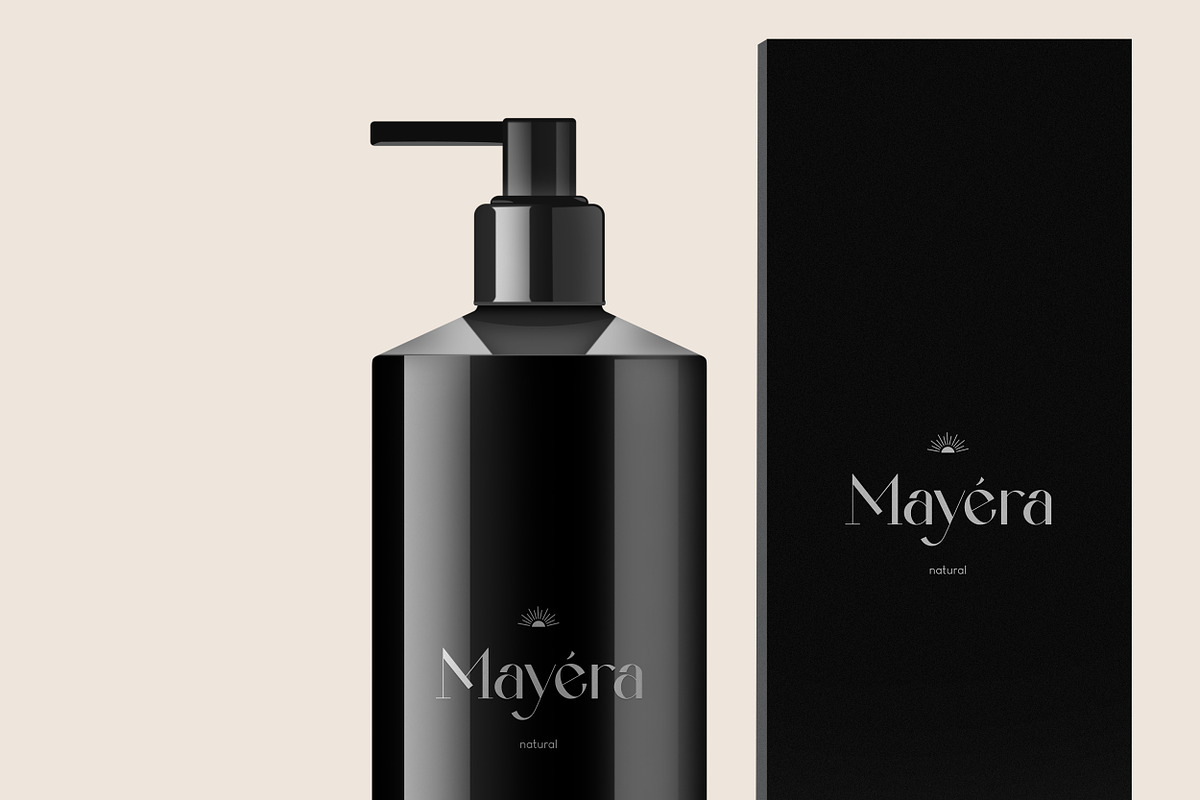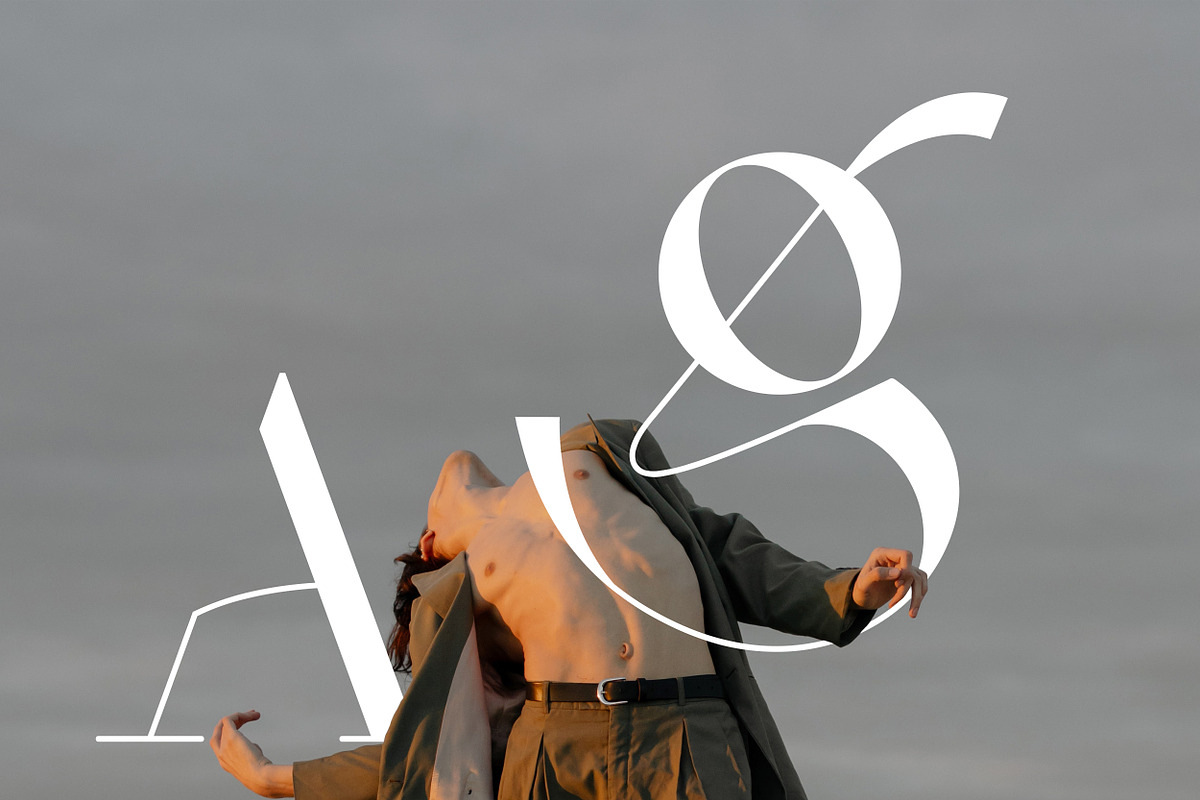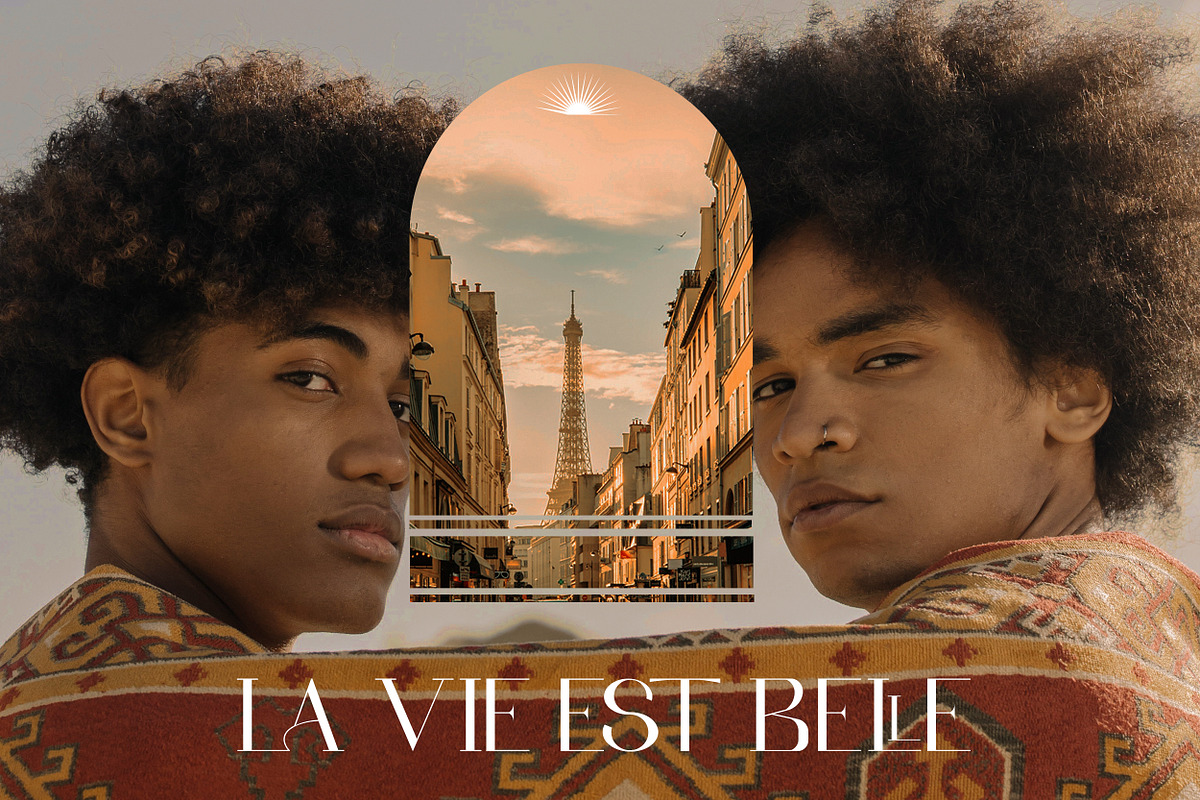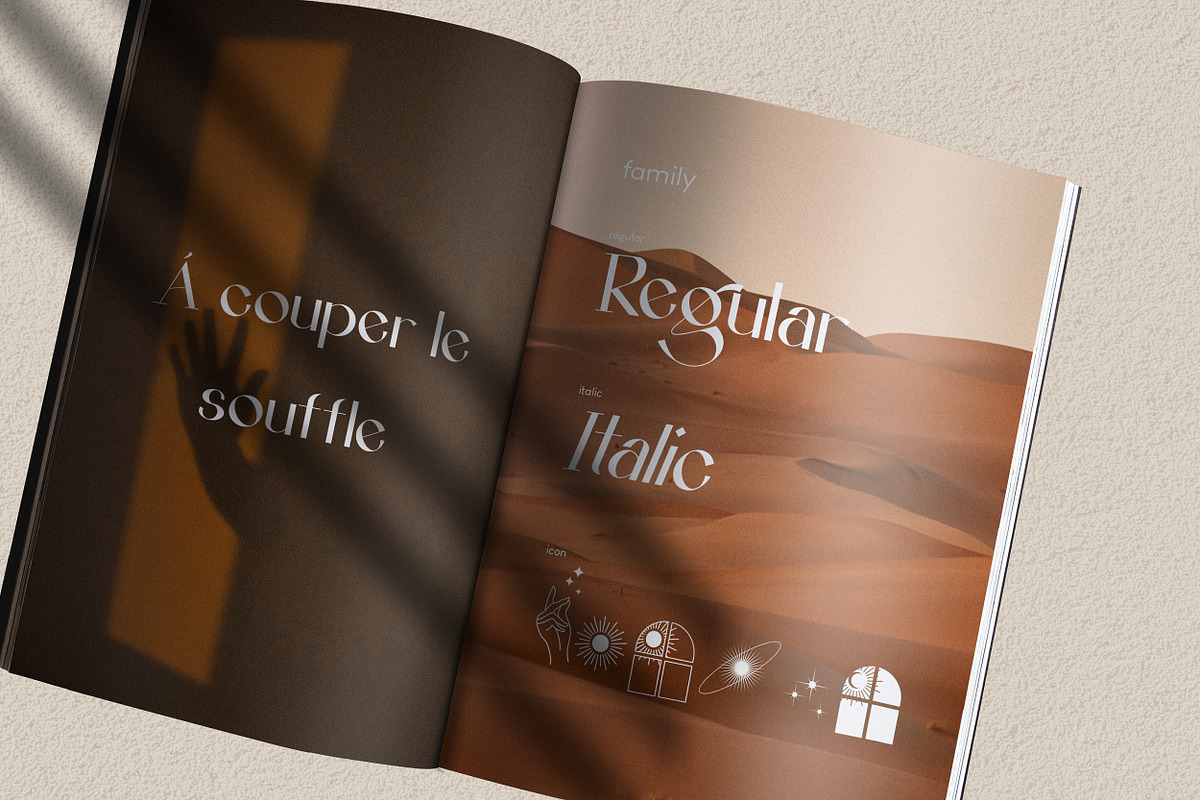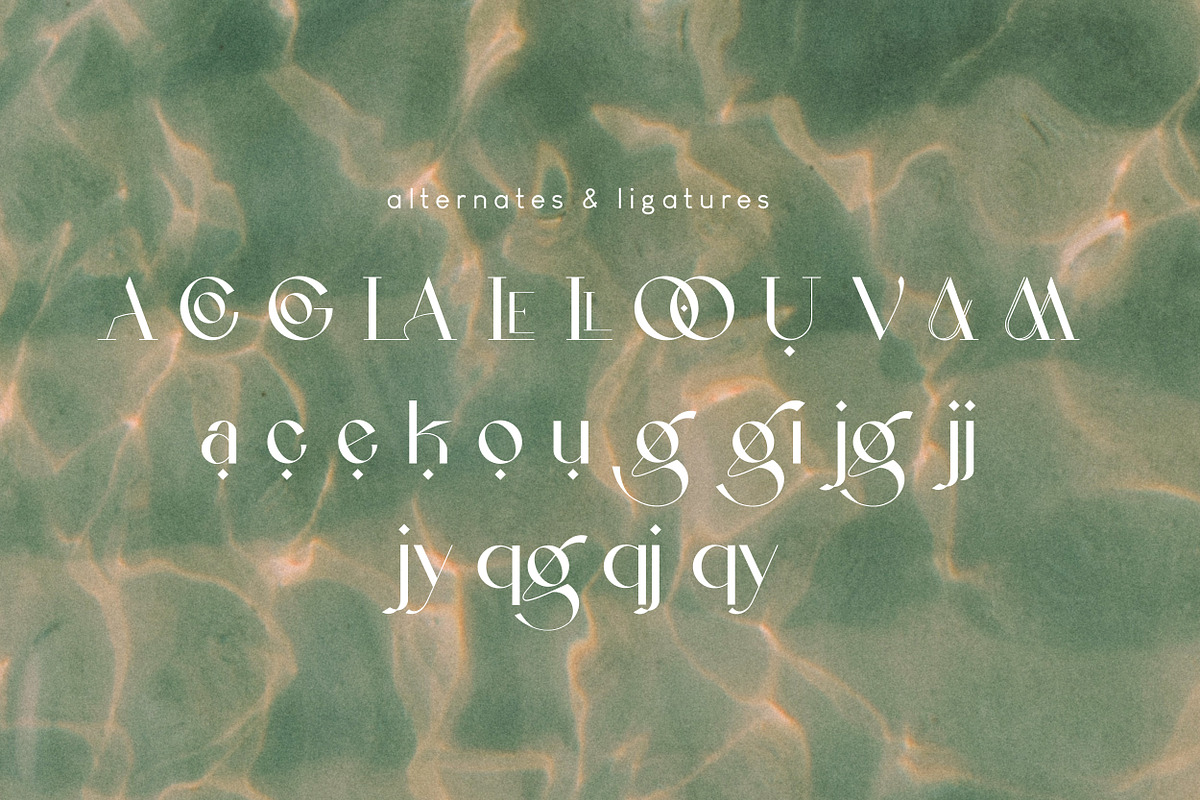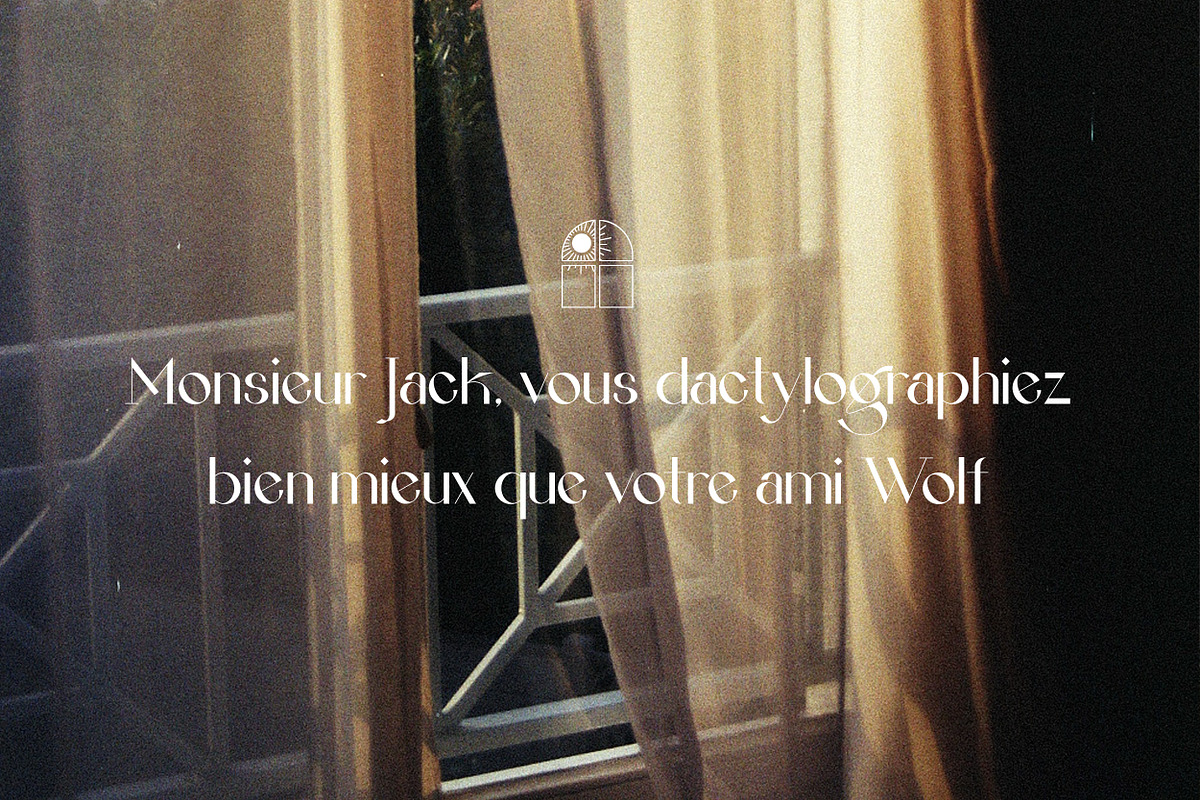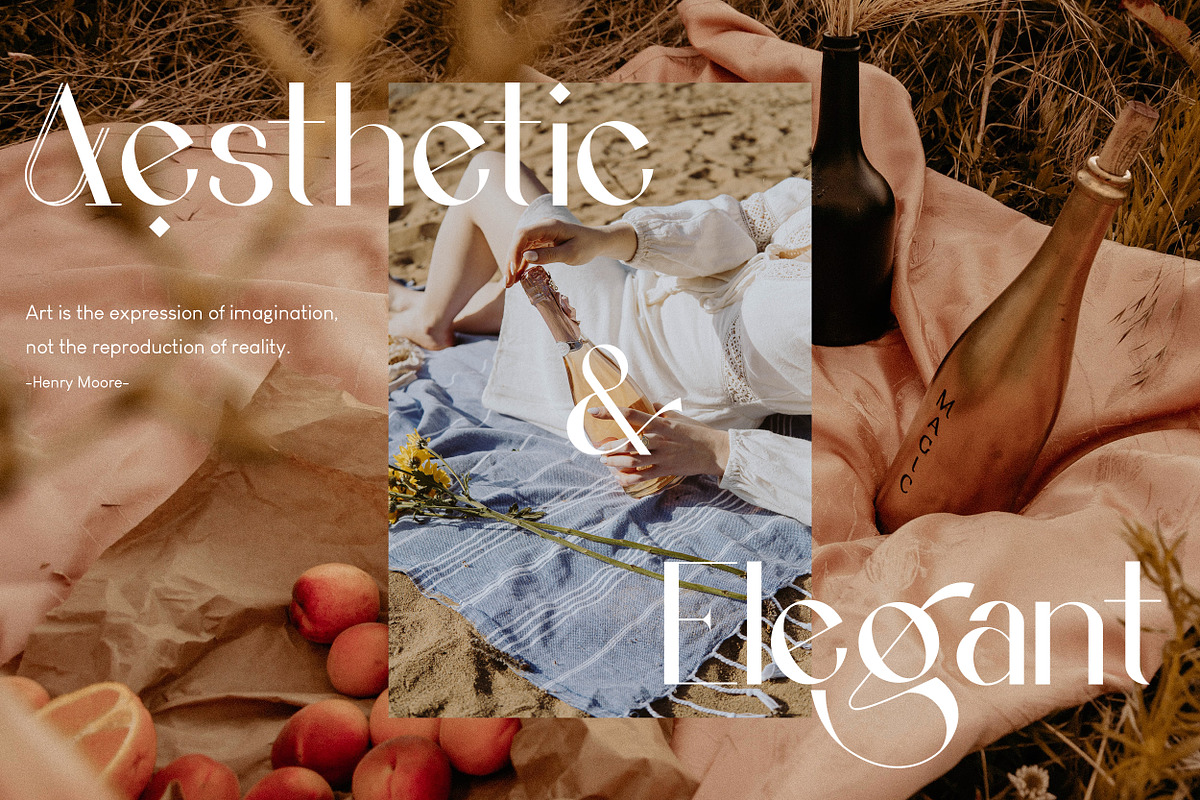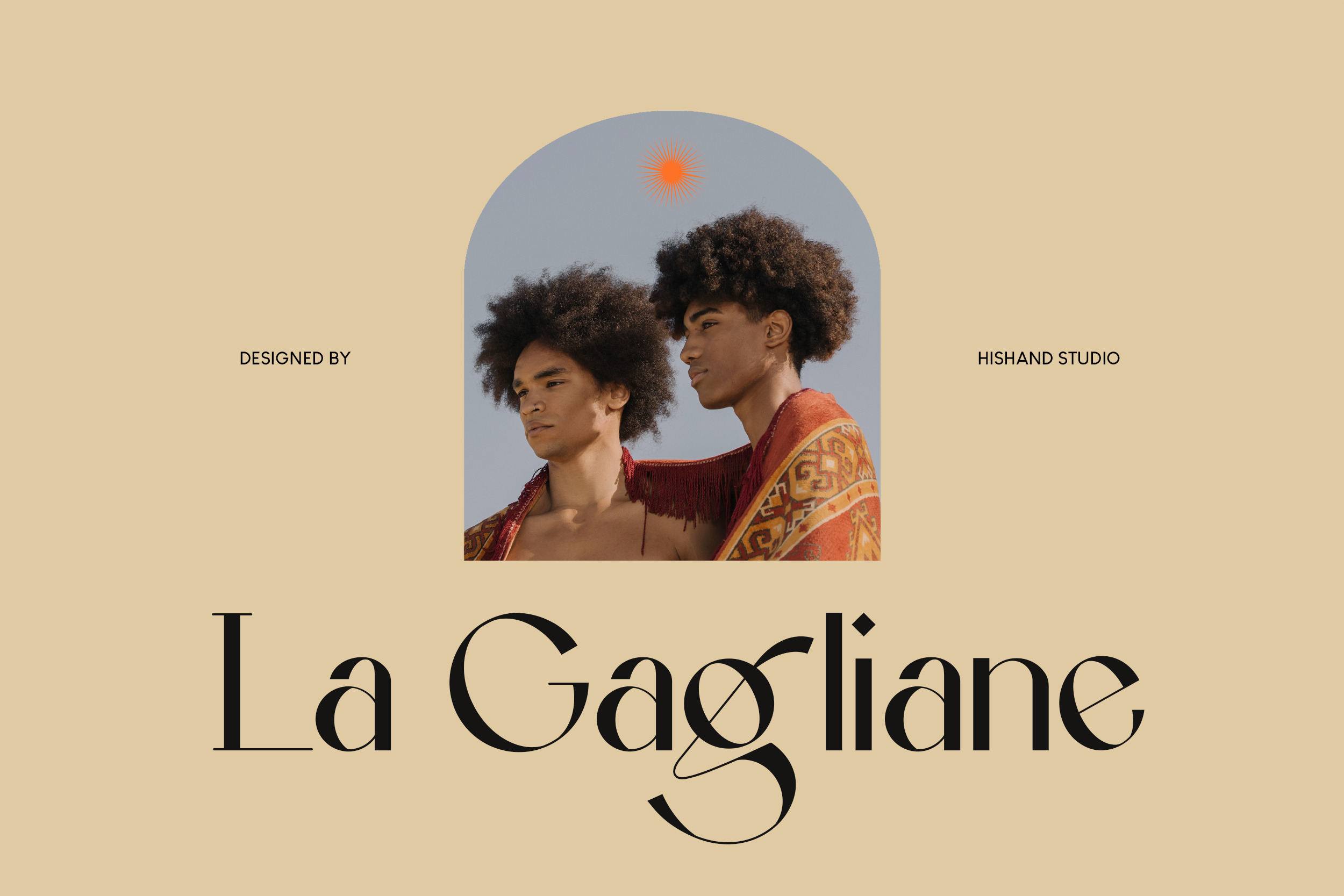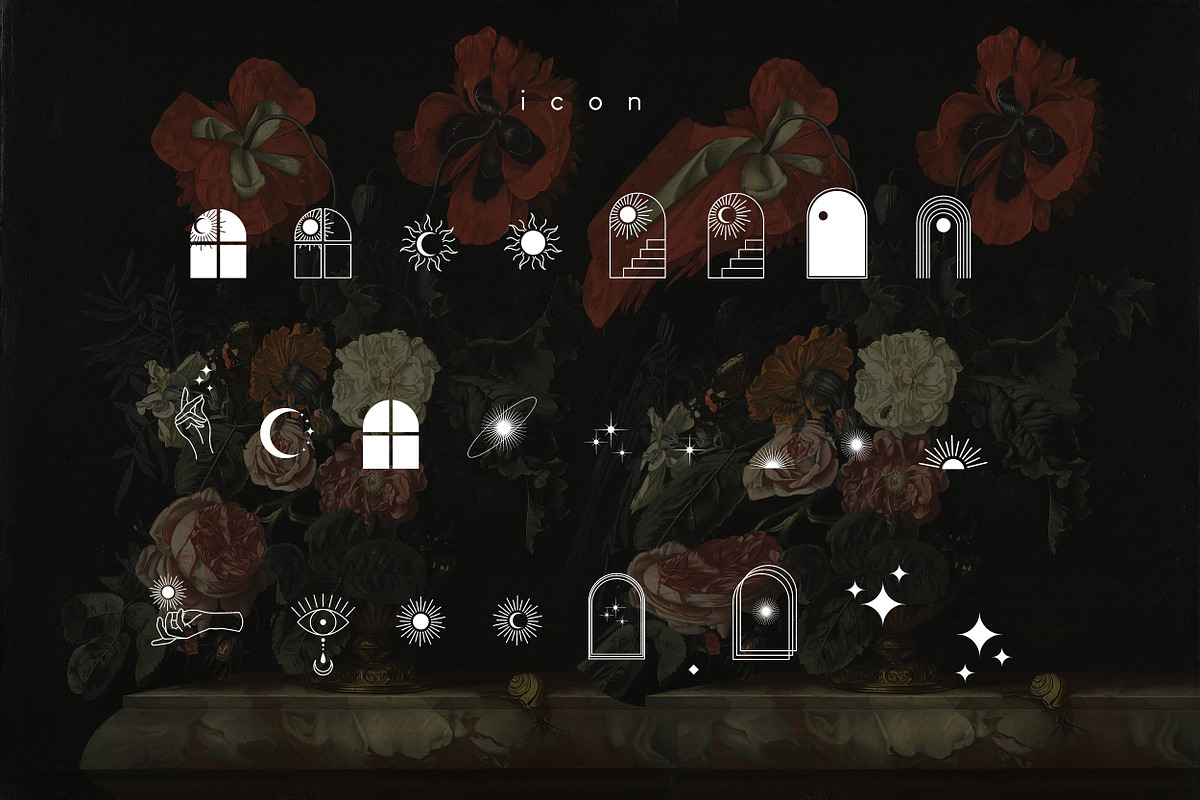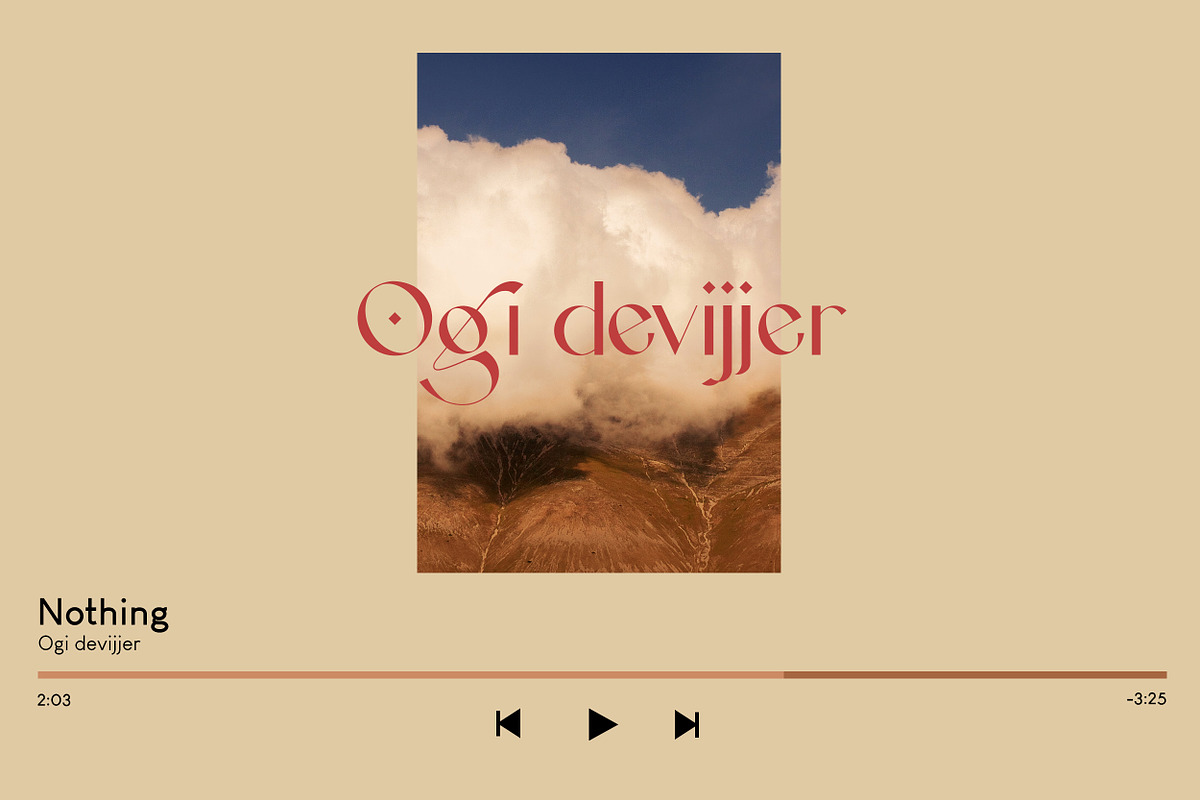
La Gagliane Classic Modern Font
La Gagliane is beautiful sans serif font that look aesthetic and elegant. Perfect for Logo brand, advertisement, product packaging, social media post, clothing brand, magazine headers and many more
complete with
- alternates
- regular
- italic
- icon
- kerning
- multilingual support